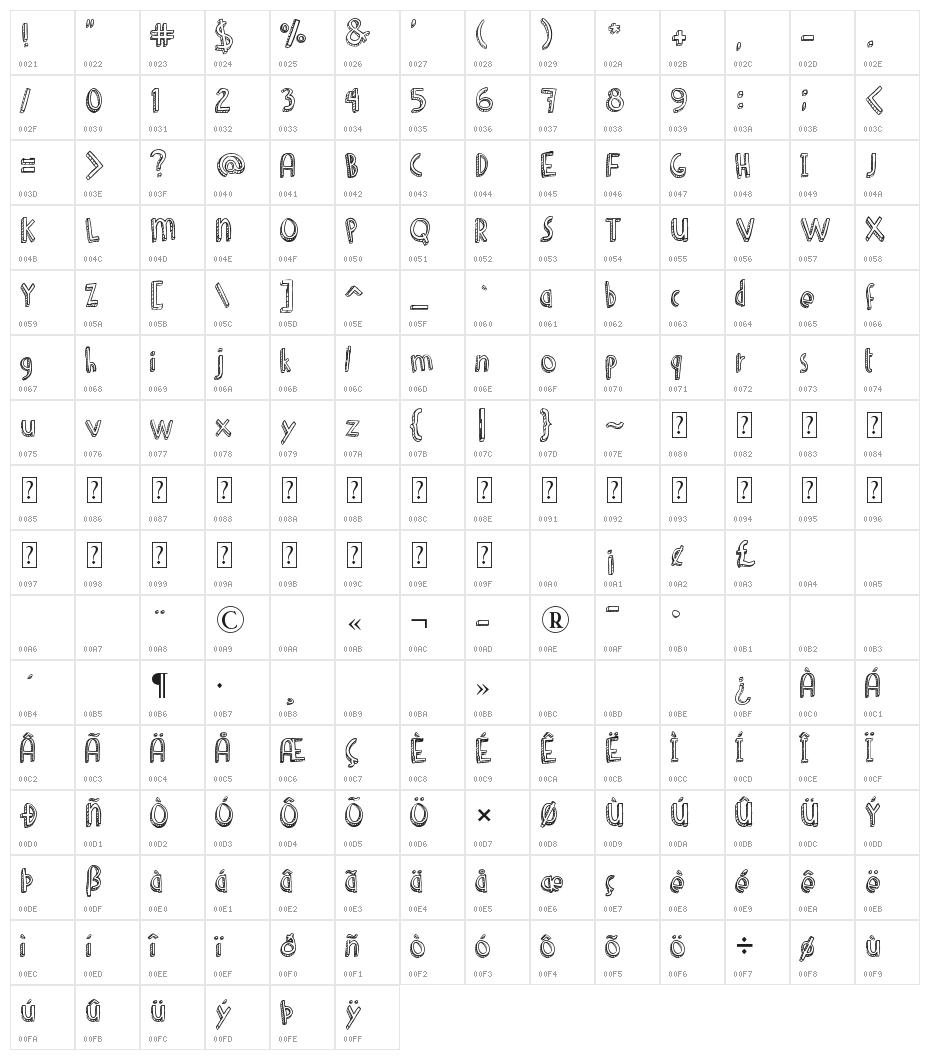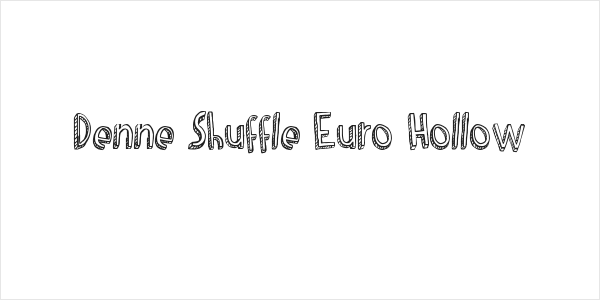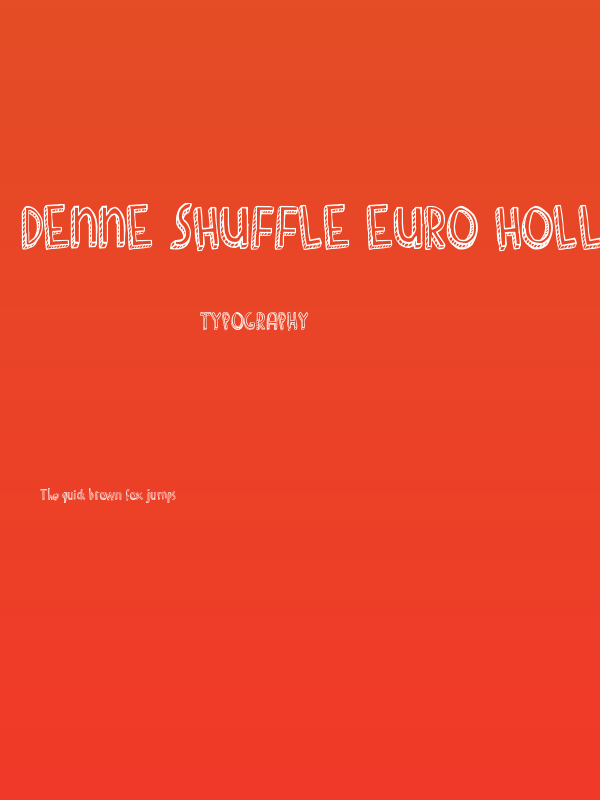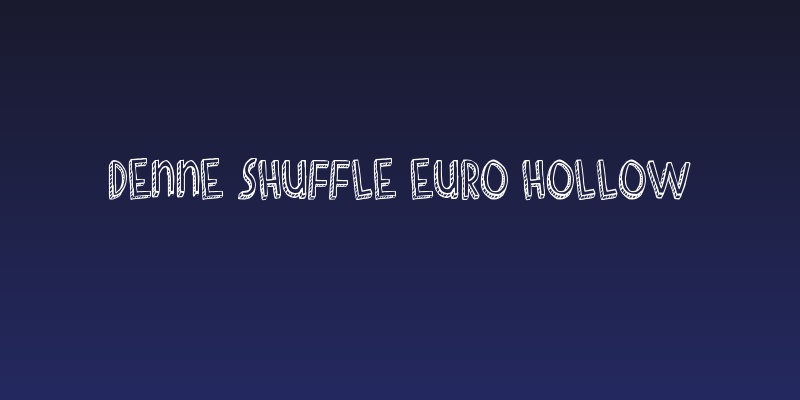
Denne Shuffle Euro Hollow Font
Denne Shuffle Euro Hollow Description
This font features a playful and whimsical design with a hollow, hand-drawn appearance. Each character is outlined with a bold stroke and filled with diagonal lines, giving it a textured, sketch-like quality. The letters are slightly irregular, adding to the casual and informal feel. The uppercase and lowercase letters maintain a consistent style, while the numbers and special characters complement the overall aesthetic. This font is ideal for projects that require a fun and creative touch, such as children's books, posters, and greeting cards.
| Overall Style | Whimsical, Playful |
| Proposed Projects | Ideal for children's books, playful posters, greeting cards, and creative designs. |